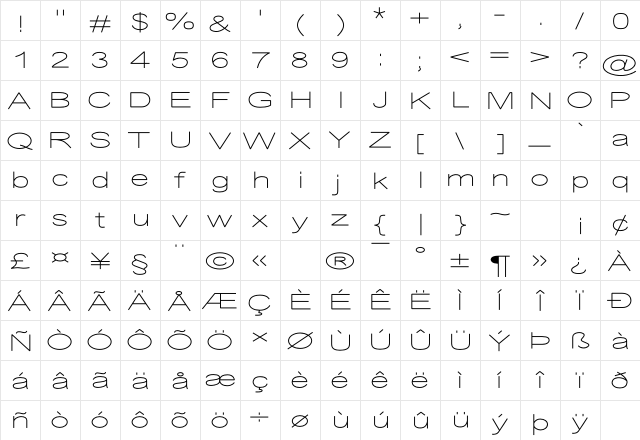
Desolator Light
Design Context for Desolator Typeface
Desolator is a composed and adaptable typeface that performs quietly and consistently across a wide range of design contexts. The delicate stroke weight brings airiness and refinement to layouts.